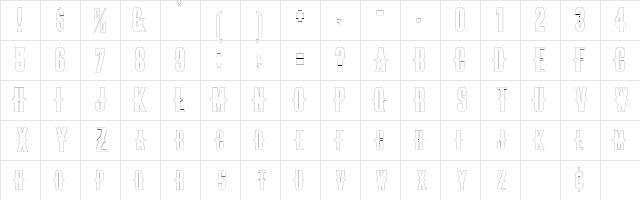
ThornsExtendedOutline Regular Font Preview
ThornsExtendedOutline Regular
Design Context for ThornsExtendedOutline Typeface
ThornsExtendedOutline brings ornamental detail and strong personality to headlines and identities, where visual impact matters more than quiet functionality.
Font Pairing: Pair with a clean neutral sans-serif for body copy to let ThornsExtendedOutline's character lead without overwhelming the composition.
Pro Tip: Treat ThornsExtendedOutline as the centrepiece of your typographic hierarchy. One strong heading set in a decorative face can carry an entire layout.